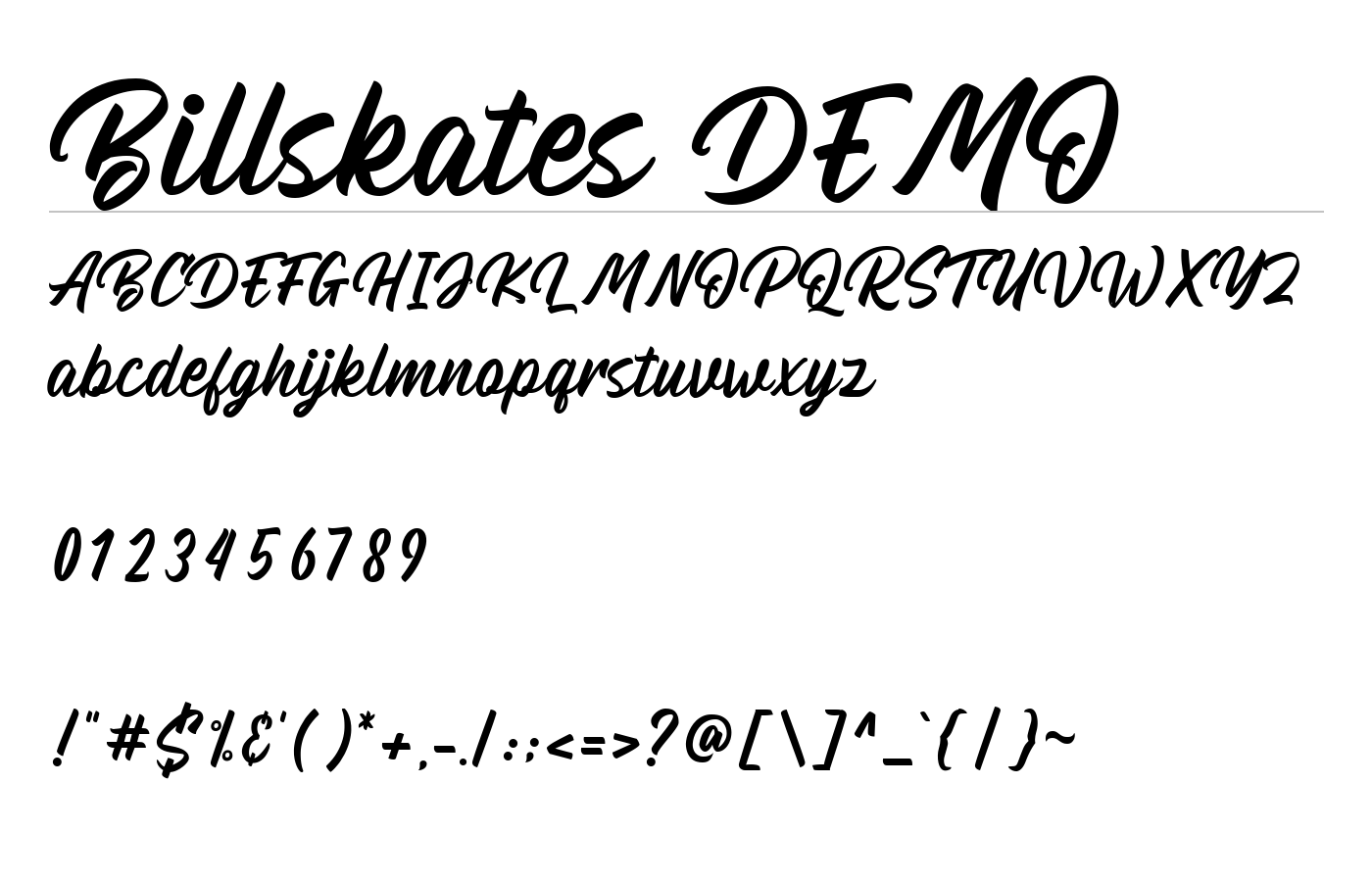
Billskates DEMO is a lively script font with a bold, brush-like texture that feels energetic and personal. It features smooth, flowing letterforms with a moderate contrast in stroke weight, making it ideal for creative designs needing a friendly and dynamic touch. Perfect for logos, invitations, and headlines, it brings a handcrafted, modern flair that stands out with playful elegance.
| Font family | Billskates DEMO Font |
| Designer | Fahrul Arjianto |